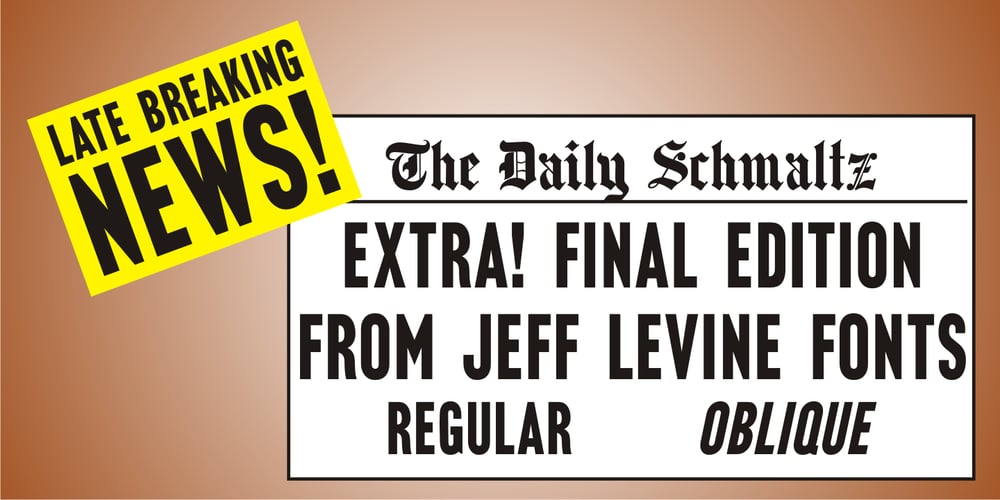
Final Edition JNL
Final Edition JNL font
Final Edition JNL Font Family was designed by Jeff Levine and published by Jeff Levine. Final Edition JNL contains 2 styles and family package options. A classic sans grotesk wood type design, Final Edition JNL was modeled from actual headlines found in online examples of an old daily newspaper.